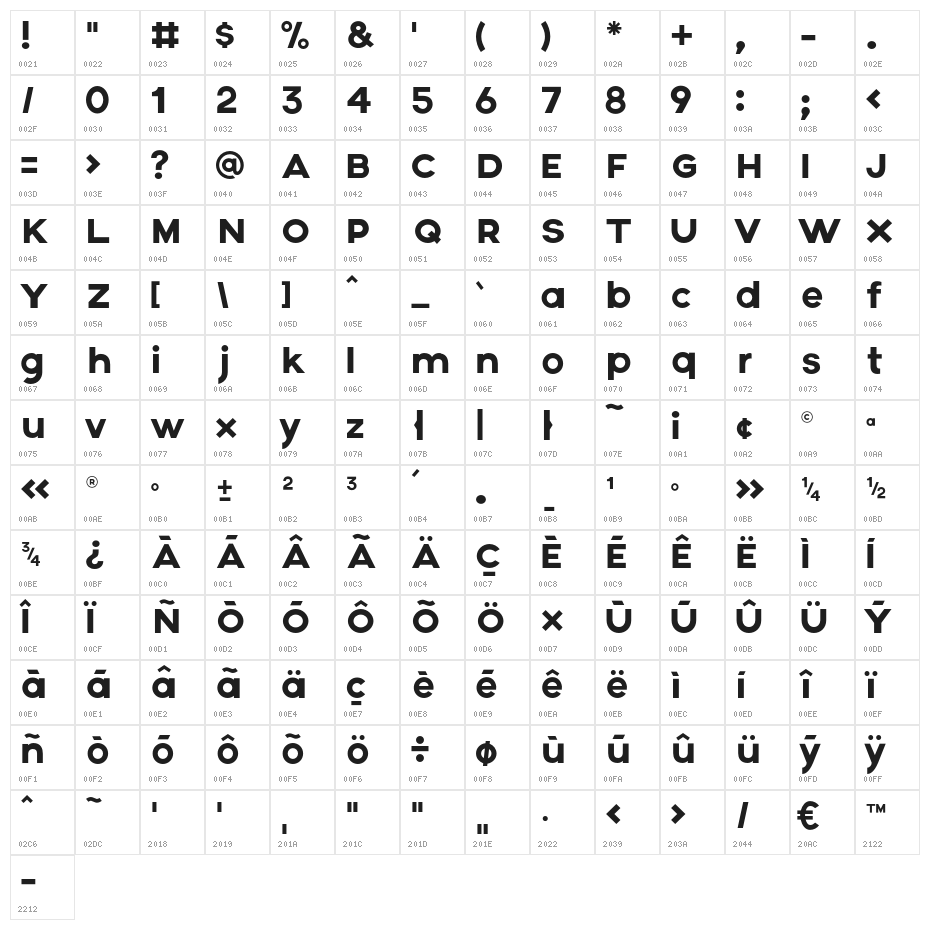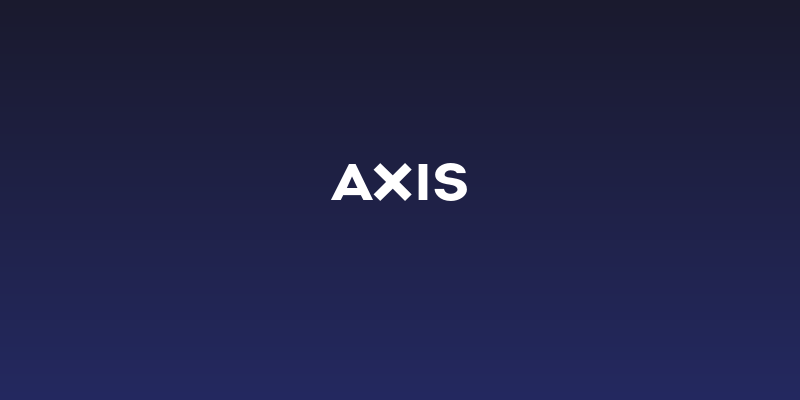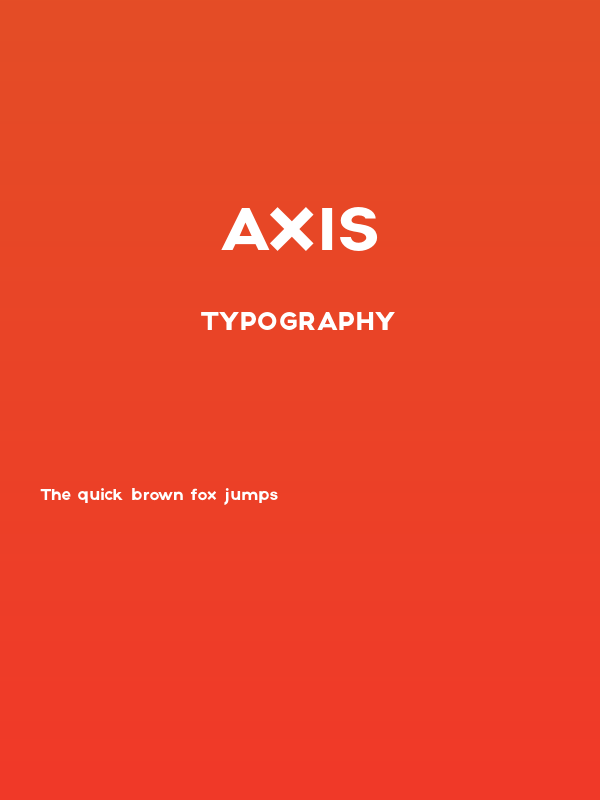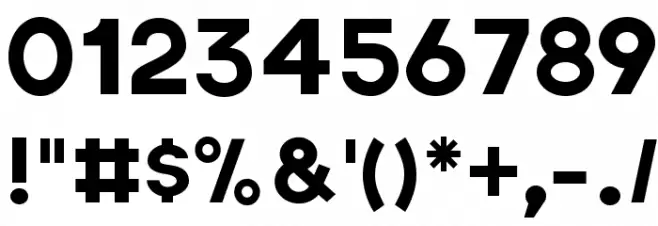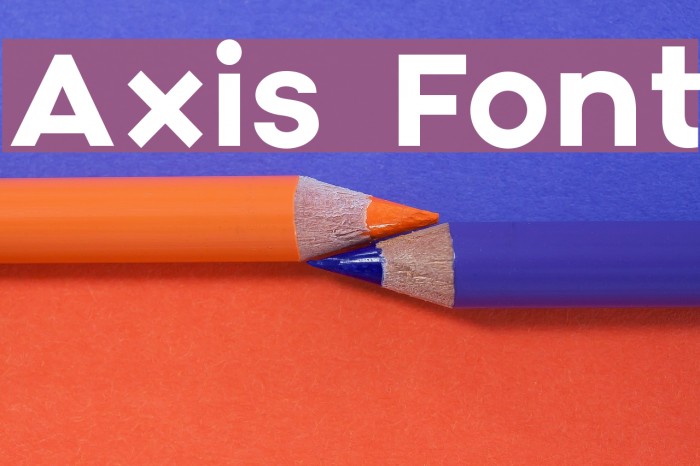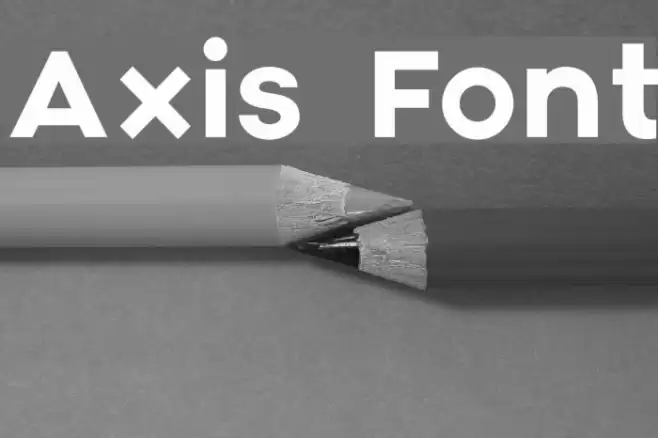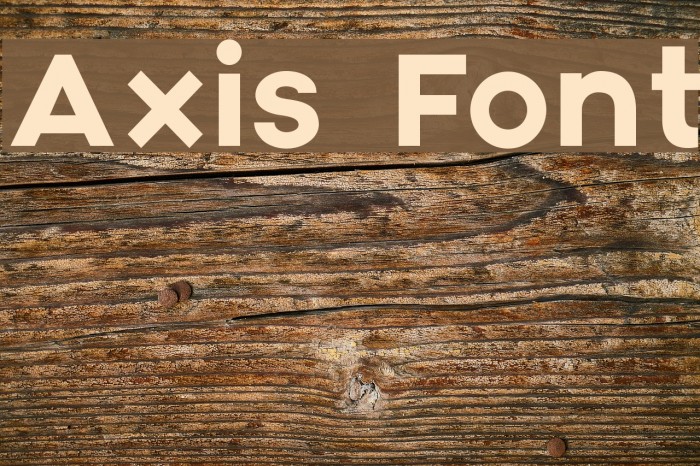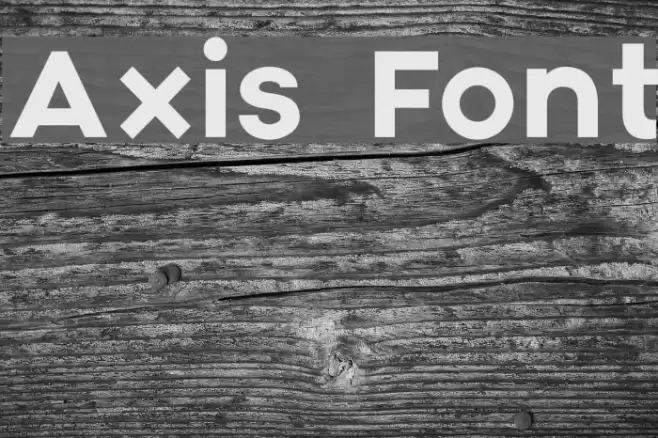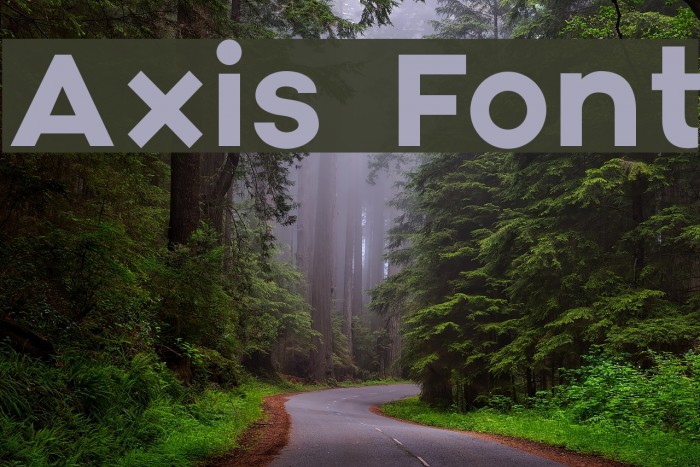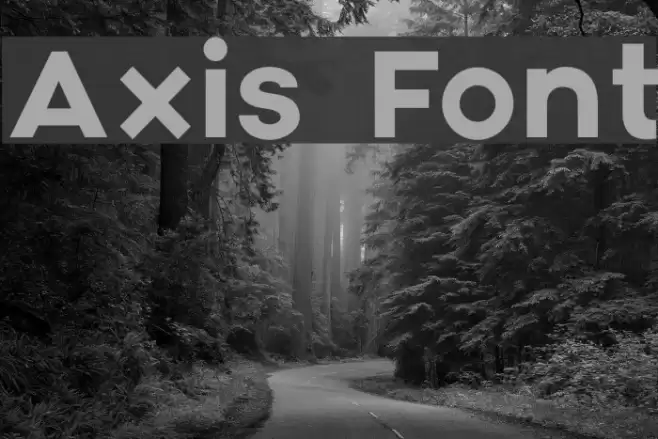
Axis Font
Axis Description
This font exhibits a bold and modern sans-serif style, characterized by clean lines and a geometric structure. The uniform stroke width and lack of serifs give it a contemporary and minimalist appearance. The characters are well-proportioned, with a consistent height and width that enhance readability. The uppercase letters are strong and assertive, while the lowercase letters maintain a friendly and approachable feel. The numerals are clear and distinct, making them suitable for various applications. Special characters are designed to match the overall aesthetic, ensuring a cohesive look across all text elements.
| Use Case | Headlines, Logos, Digital interfaces |
| Proposed Projects | Ideal for branding, advertising, headlines, and digital interfaces where clarity and modernity are key. |